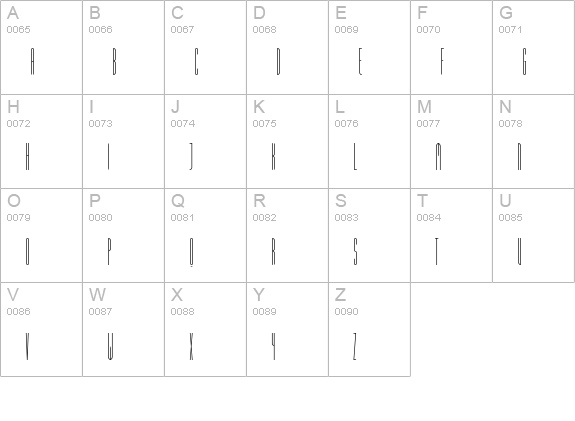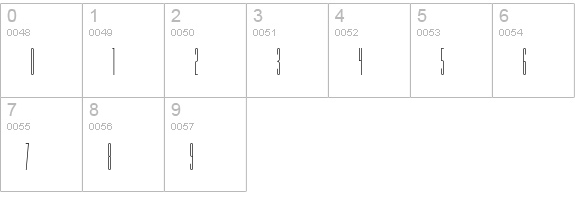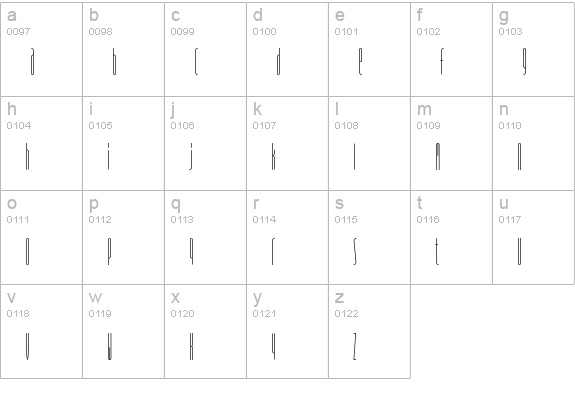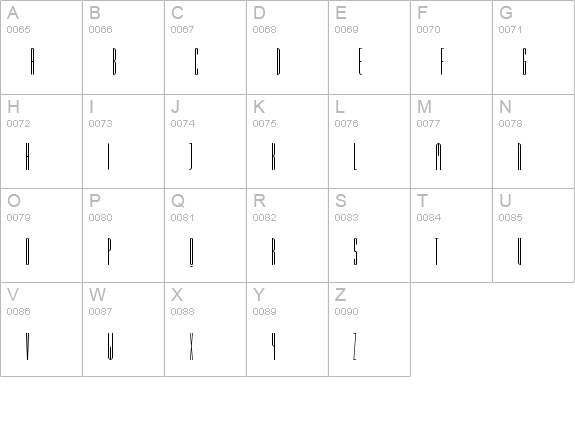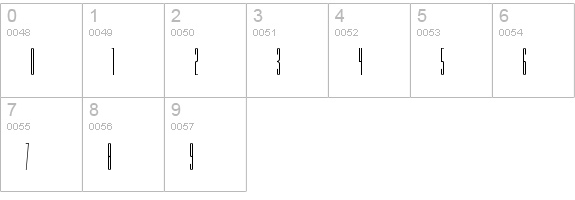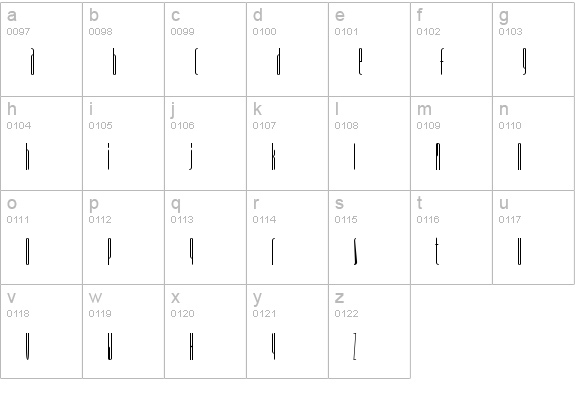
Typeface-FourOne Font Details
Introducing Typeface-FourOne, a captivating font that effortlessly blends elegance with modernity. This font is a true masterpiece, meticulously crafted to bring a touch of sophistication to any design project. Its sleek and refined letterforms exude an air of confidence, making it perfect for a wide range of creative endeavors. What makes Typeface-FourOne truly exceptional is not just its stunning aesthetics, but also the fact that it is available for free! Yes, you read that right – this extraordinary font can be downloaded at absolutely no cost from FontsMarket.com. Embracing the spirit of accessibility and inclusivity, Typeface-FourOne ensures that anyone, regardless of their budget, can enjoy its unparalleled beauty. Whether you're designing a logo, creating a striking headline, or enhancing your personal branding, Typeface-FourOne is the ultimate choice. Its versatility knows no bounds, effortlessly adapting to both digital and print mediums. With its clean lines and well-balanced proportions, this font adds a touch of sophistication to any project, elevating it to new heights of visual excellence. The attention to detail in Typeface-FourOne is truly remarkable. Each character is meticulously designed to create a harmonious and balanced typeface that is pleasing to the eye. The smooth curves and sharp angles work together seamlessly, resulting in a font that is both visually striking and highly legible. Featuring a wide range of characters, including uppercase and lowercase letters, numbers, and punctuation marks, Typeface-FourOne provides endless possibilities for creative expression. Its extensive character set ensures that you have all the tools you need to bring your design visions to life. So, why wait? Discover the beauty and versatility of Typeface-FourOne today. Download this extraordinary font for free at FontsMarket.com and unlock a world of creative possibilities. Let this font take your designs to new heights and leave a lasting impression on your audience. Typeface-FourOne is not just a font; it's a statement of elegance, access, and artistic freedom.